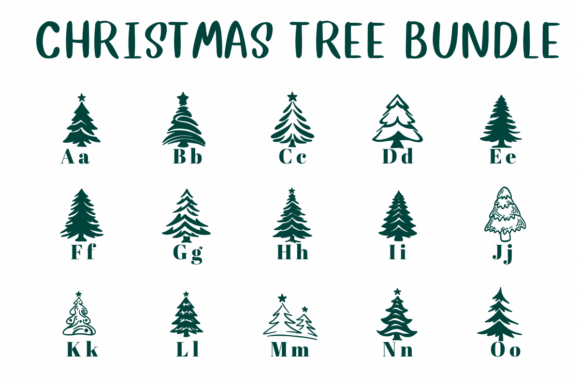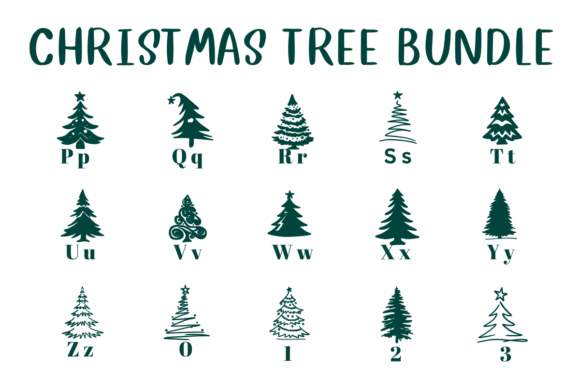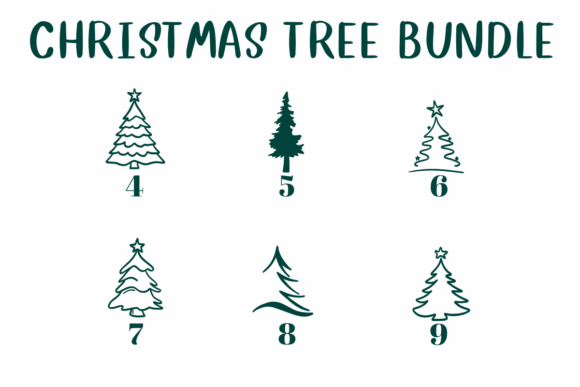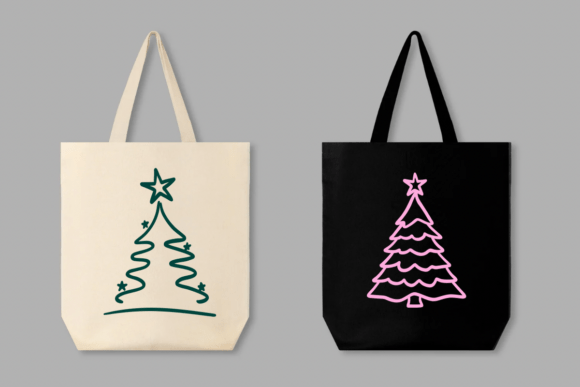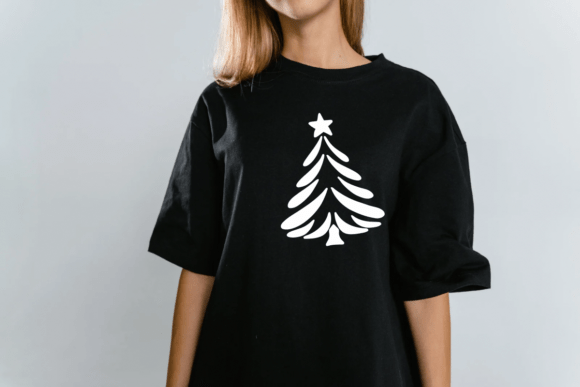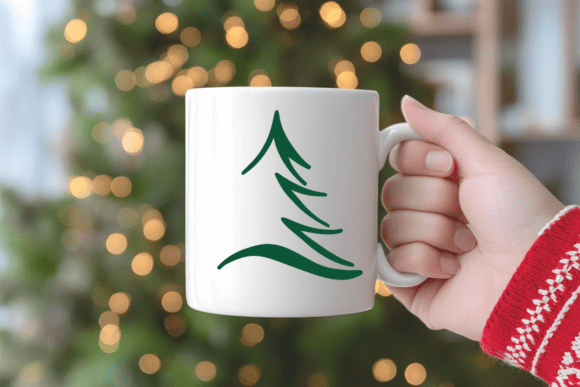
Deck the Halls with the Christmas Tree Bundle Font
Are you looking for a festive and fun way to add some holiday cheer to your designs? Look no further than the Christmas Tree Bundle Font! This delightful dingbats font is packed with hand-drawn Christmas tree illustrations that are perfect for holiday-themed designs. Whether you’re a designer, crafter, or DIY enthusiast, this bundle offers a variety of tree shapes that you can instantly use as decorative elements, icons, or digital stamps.
What is the Christmas Tree Bundle Font?
The Christmas Tree Bundle Font is a unique and creative font that features a collection of hand-drawn Christmas tree illustrations. Unlike traditional fonts, this dingbats font allows you to add festive and fun elements to your designs with just a few clicks. The bundle includes a range of tree shapes, from whimsical to classic styles, so you can choose the perfect tree to match your holiday theme.
What Can I Use the Christmas Tree Bundle Font For?
The possibilities are endless with the Christmas Tree Bundle Font! Here are just a few ideas to get you started:
- Holiday Cards: Add a personal touch to your holiday cards with these festive Christmas tree illustrations. Use them as decorative elements, borders, or even as a fun way to illustrate your holiday messages.
- Crafts: The Christmas Tree Bundle Font is perfect for crafters who love to make their own holiday decorations, gift tags, and other DIY projects. Use the tree illustrations as digital stamps or cut-outs to add a personal touch to your creations.
- Printables: Create your own holiday printables, such as gift tags, labels, and decorations, using the Christmas Tree Bundle Font. Simply print out the illustrations and use them to add a festive touch to your gifts and holiday decor.
- Seasonal Branding: If you’re a business owner, you can use the Christmas Tree Bundle Font to add a festive touch to your holiday branding. Use the tree illustrations in your social media graphics, email templates, and website designs to create a fun and festive atmosphere.
Why Choose the Christmas Tree Bundle Font?
Here are just a few reasons why the Christmas Tree Bundle Font is a must-have for designers and crafters:
- Unique and Creative: The Christmas Tree Bundle Font offers a unique and creative way to add holiday cheer to your designs. The hand-drawn illustrations are original and fun, and will add a personal touch to your projects.
- Versatile: The Christmas Tree Bundle Font is versatile and can be used for a range of projects, from holiday cards and crafts to seasonal branding and printables.
The Christmas Tree Bundle Font is a fun and creative way to add holiday cheer to your designs. With its unique and hand-drawn illustrations, this dingbats font is perfect for holiday-themed designs, crafts, and seasonal branding. Whether you’re a designer, crafter, or DIY enthusiast, this font is a must-have for adding a festive touch to your projects. So why wait? Download the Christmas Tree Bundle Font today and start decking the halls with festive and fun illustrations!